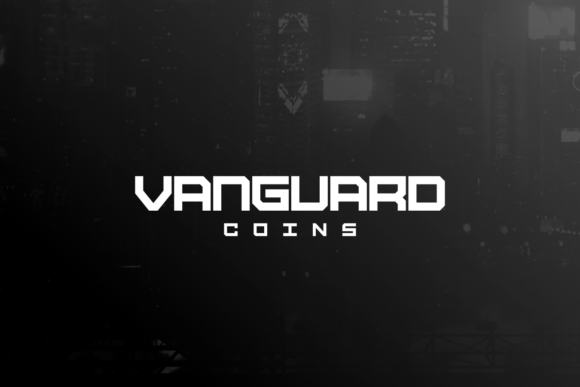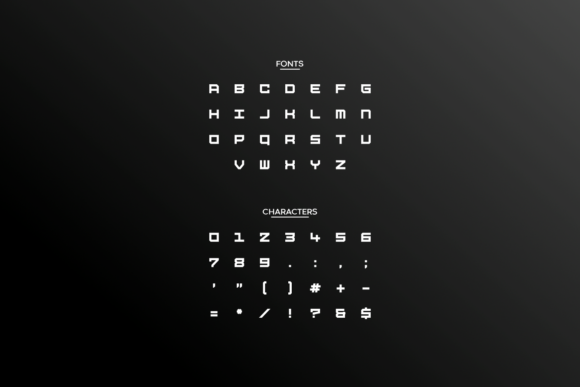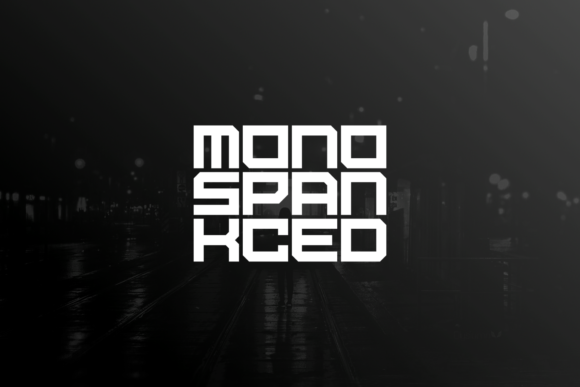
Discover the Power of Higrah Font
Have you ever found yourself staring at a blank canvas, struggling to bring your creative project to life? The perfect typography can be the difference between a good design and a great one. As a designer, you know how crucial it is to choose a font that not only reflects your brand’s personality but also elevates your overall aesthetic.
That’s where the Higrah Font comes in – a game-changing industrial monospace typography that’s about to take your designs to the next level. With its unique style of capitalization and character, Higrah Font exudes a strong and masculine look that’s perfect for titles, logos, illustrations, and more. Whether you’re working on a high-profile project or a personal creative endeavor, this design resource is sure to deliver.
Key Features of Higrah Font
- Unique and Creative Design: Higrah Font is a high-quality design resource perfect for any creative project.
- Multi-Language Support: This font supports multiple languages, making it an ideal choice for international projects.
- Easy to Use: Higrah Font is designed to be easy to use, with a clear and intuitive design that makes it perfect for designers of all levels.
- High-Quality Graphics: This font features high-quality graphics, including intricate details and subtle textures, adding an extra layer of depth to any design.
Honest Review: Higrah Font
I recently stumbled upon the Higrah Font, and I must say it’s been a game-changer for my design projects. This free download has quickly become my go-to resource for adding a touch of elegance to my creative endeavors.
- ✨ High-quality design: The Higrah Font boasts a sleek, modern aesthetic that elevates any design project.
- ✨ Versatility: This font is suitable for a wide range of creative projects, from logos to typography-driven designs.
- ✨ Transparency: The font’s transparent background makes it easy to use in combination with other design elements.
- ⚠️ Limited font weights: While the Higrah Font is well-designed, it lacks a range of font weights, which can make it challenging to achieve the desired level of boldness or subtlety.
- ⚠️ Not suitable for small text: Due to its elegant design, the Higrah Font can be difficult to read in small sizes.
Overall, I’m impressed with the Higrah Font. It’s a valuable design resource that can add a touch of sophistication to any creative project. While it may have some limitations, its high-quality design and versatility make it a worthwhile addition to any designer’s toolkit.
Higrah Font
Tips for Getting the Most Out of Higrah Font
For the best results, use Higrah Font in creative projects where a high-quality, unique font is required. Experiment with different font sizes, colors, and styles to enhance the overall design.
Higrah Font is commonly used in design projects such as logos, business cards, brochures, and social media graphics. Its unique design makes it an excellent choice for creative projects that require a distinctive look.